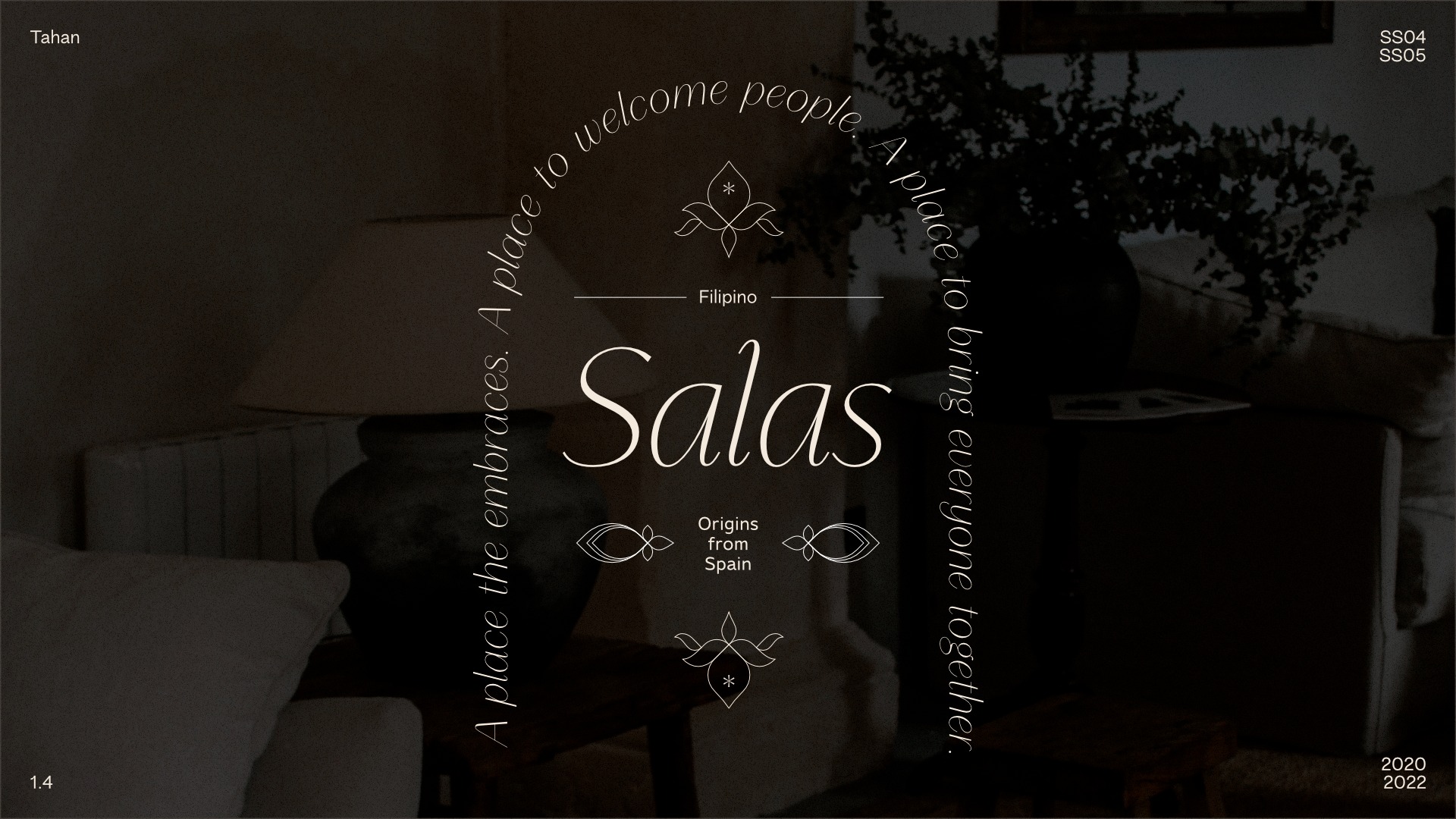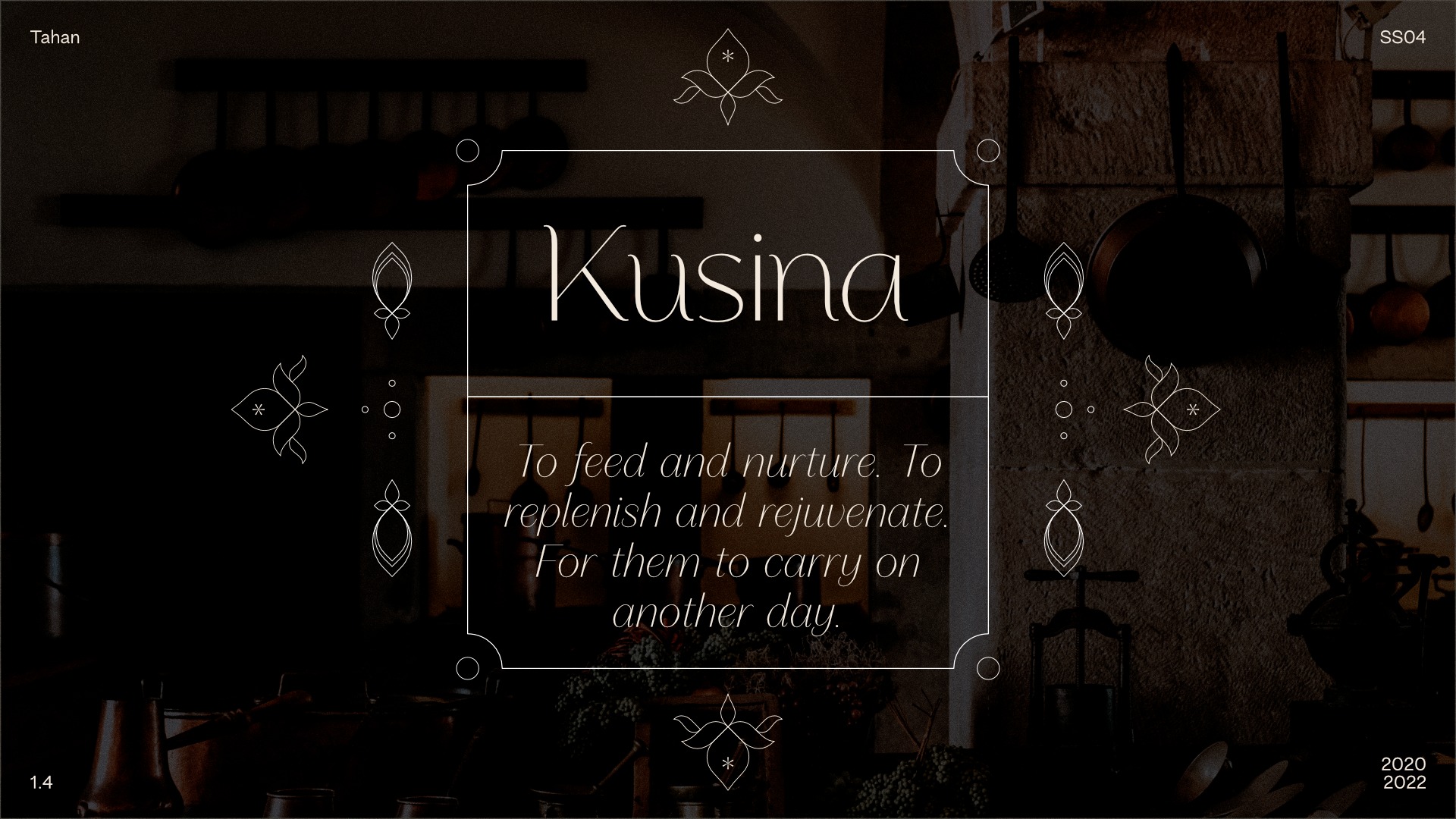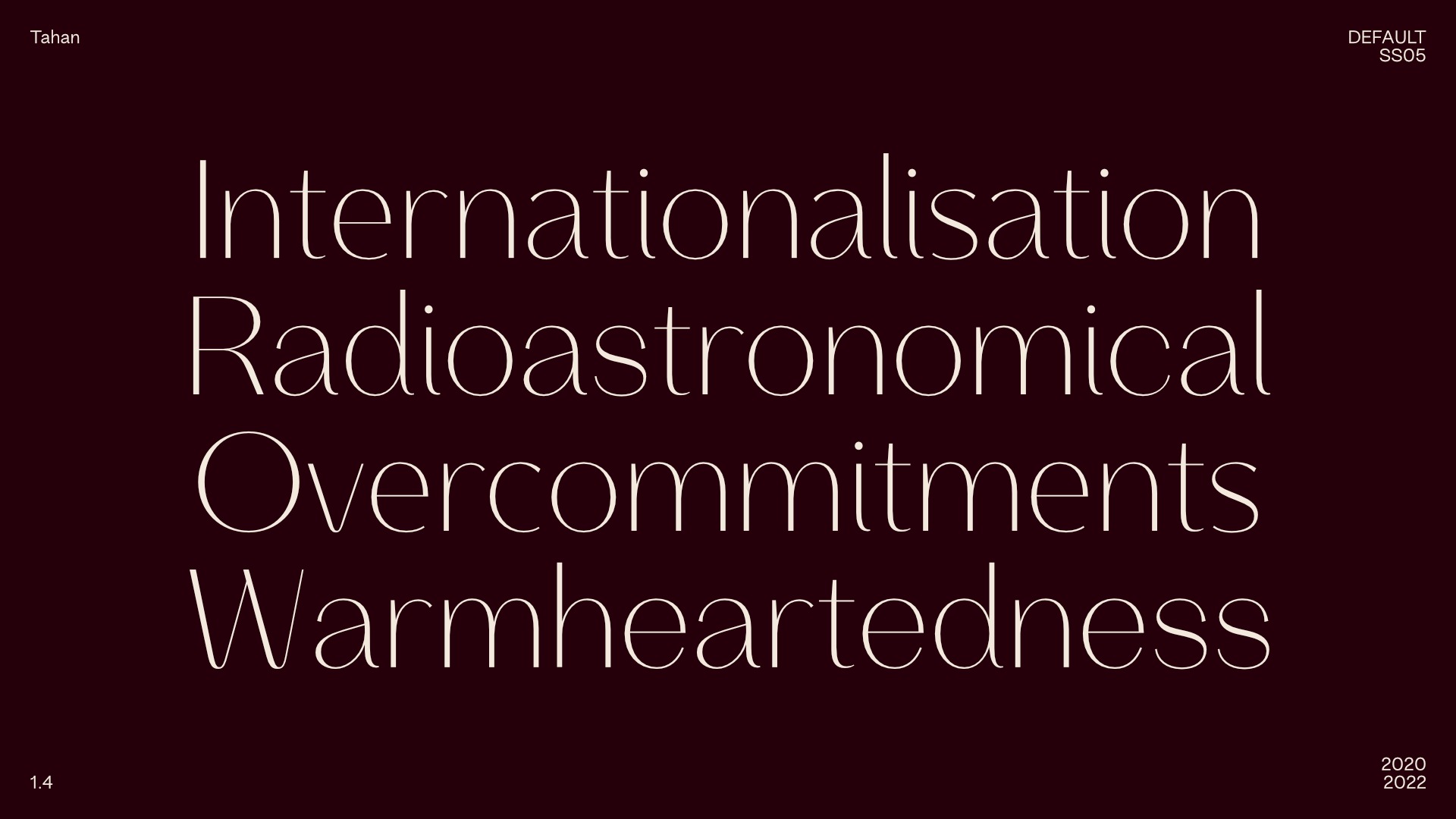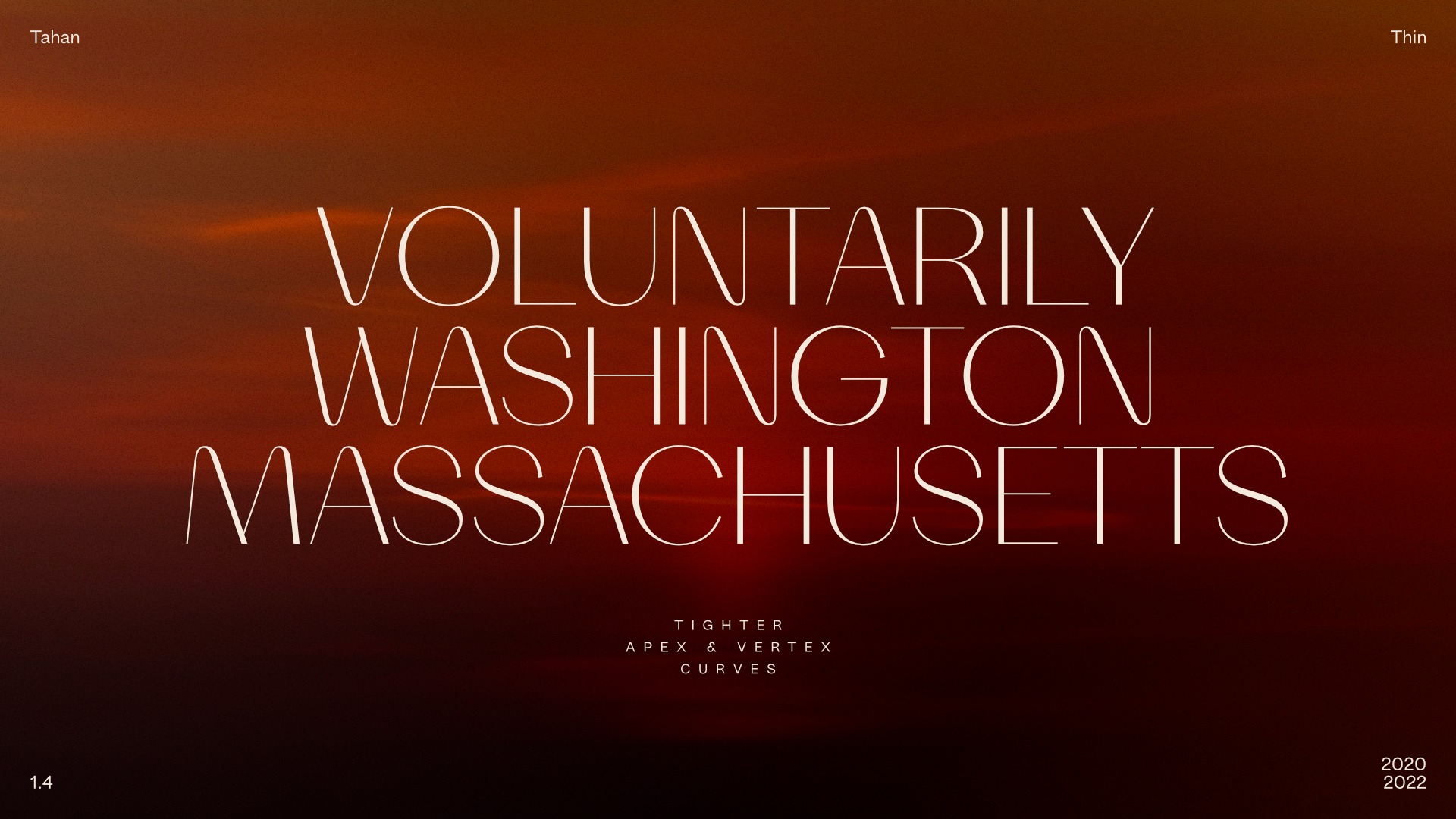
Tahan Sans Serif Font
This is a modern contrasting and elegant sans serif font, which is presented in a upright and oblique style and also has 7 weights, this gives more opportunities for your design project. Designed to its very name, it draws a familiar warmth from it’s curves with the poise of neoclassical forms.
Its rounded apexes and vertices are what gave it its warm careful personality. Calligraphic strokes on the other hand, dictated the calm character of the typeface making it fit for lifestyle-centric brands.
Now with True Italic in a faux script fashion. It differentiates itself from the Roman cut giving your text the emphasis it needs.